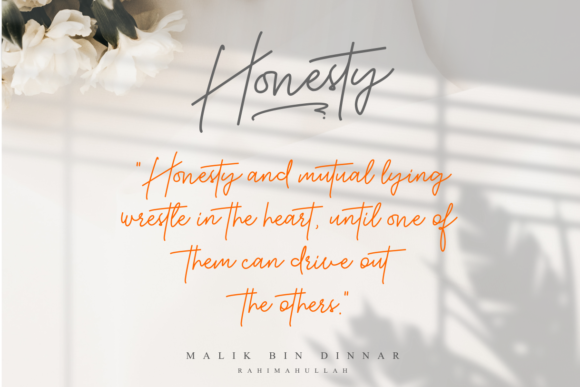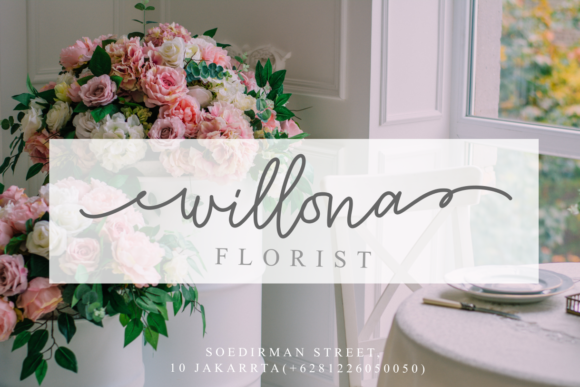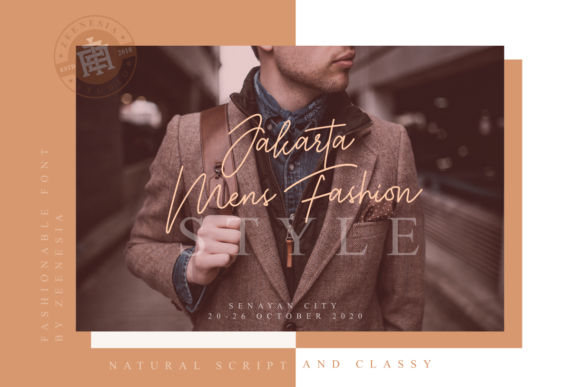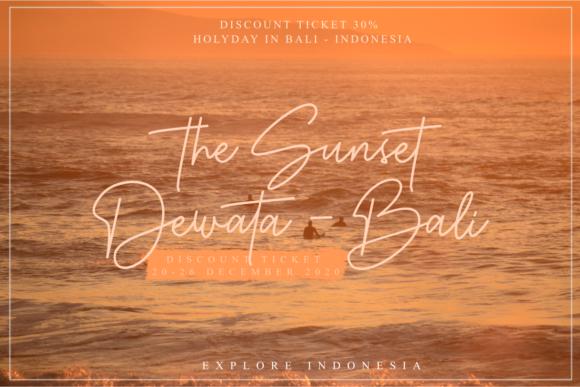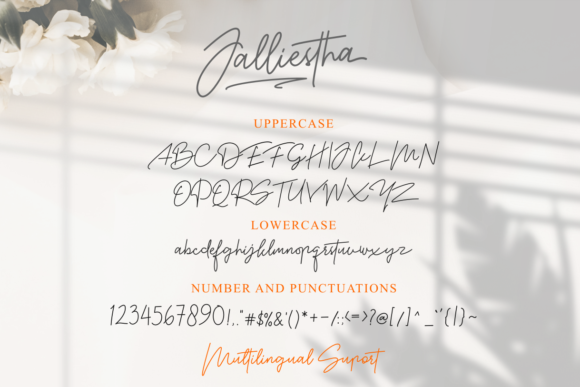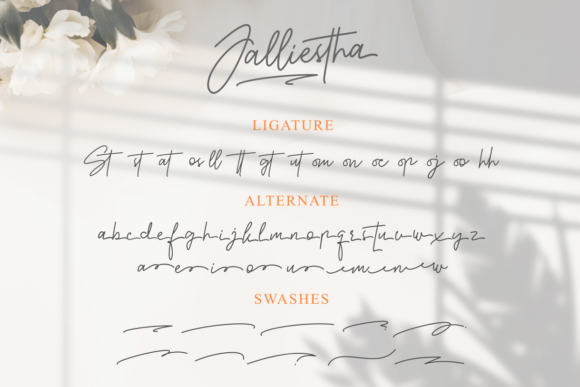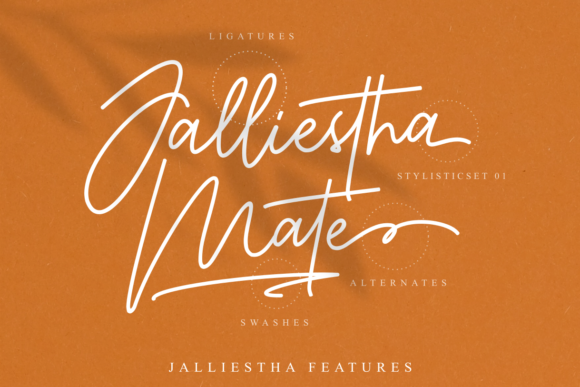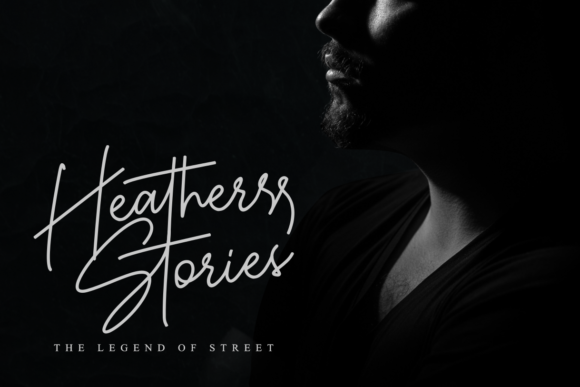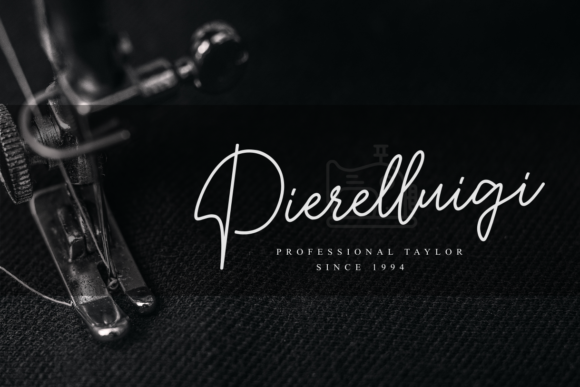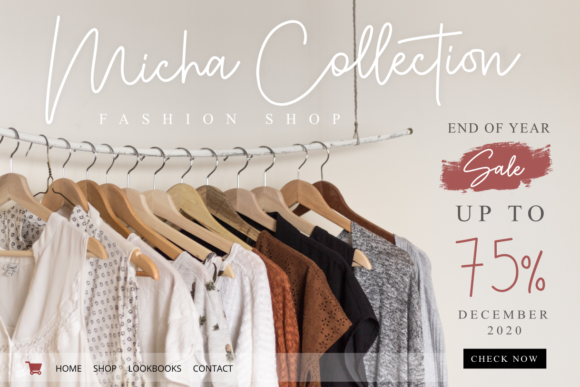
Jalliestha Font
About Jalliestha Font
Introducing Jalliestha, an exquisite handwritten font that radiates beauty and charm. This font is a true work of art, masterfully designed to blend its classy calligraphic influences with a modern and fresh touch. With Jalliestha, you’ll find yourself captivated by its elegance and mesmerized by its allure, making it an instant favorite for all your design projects. Prepare to elevate your creations to the highest levels of excellence with Jalliestha.
Jalliestha maintains a sense of timeless beauty, as if each stroke was carefully crafted with the expertise of a seasoned calligrapher. Its flowing and elegant style adds a touch of refinement to your text, making it perfect for wedding invitations, love letters, inspiring quotes, and more.
The font’s versatility knows no bounds. As you fall in love with Jalliestha, you’ll discover how seamlessly it adapts to various design projects. Whether used for branding and logo design, social media graphics, blog headers, or digital artwork, Jalliestha’s charm enriches your creations with its exquisite appeal.
With Jalliestha’s PUA encoding, your projects gain access to a sophisticated collection of glyphs and swashes. This feature allows you to infuse your designs with personalized embellishments and decorative elements, making each creation a unique and artful masterpiece.
In special moments and joyous occasions, Jalliestha becomes an enchanting choice. Imagine using it for wedding stationery, where the font’s elegance and grace set the perfect tone for a celebration of love and togetherness.
Moreover, in branding and logo design, Jalliestha shines brightly. Its calligraphic elegance creates a logo that exudes sophistication and sophistication, reflecting your brand’s identity with a touch of grace.
In the digital realm, Jalliestha brings an air of elegance to social media graphics and blog headers. Its flowing lines and contemporary charm draw viewers in, making your online presence stand out with a modern and fresh appeal.
In longer passages, Jalliestha maintains its legibility, making it a valuable asset for editorial designs like books, magazines, and brochures. Its smooth flow ensures that readers can comfortably immerse themselves in the written words, enjoying every nuance and detail.
In conclusion, Jalliestha is more than just a font; it’s an exquisite blend of classic calligraphy and contemporary style. With its masterful design and PUA encoding, Jalliestha becomes a true favorite for all your design endeavors. Embrace the beauty and charm of Jalliestha and watch as your projects flourish with elegance and allure. Let your creativity soar in the exquisite embrace of Jalliestha, the handwritten font that defines excellence.